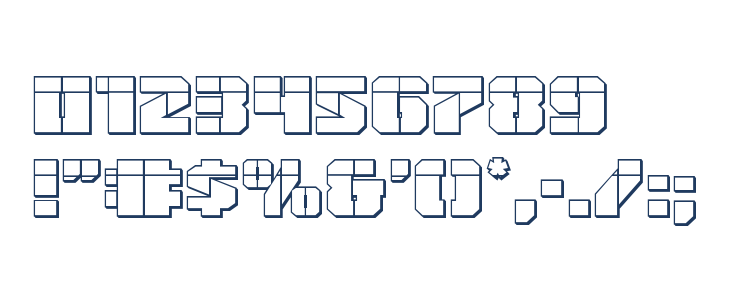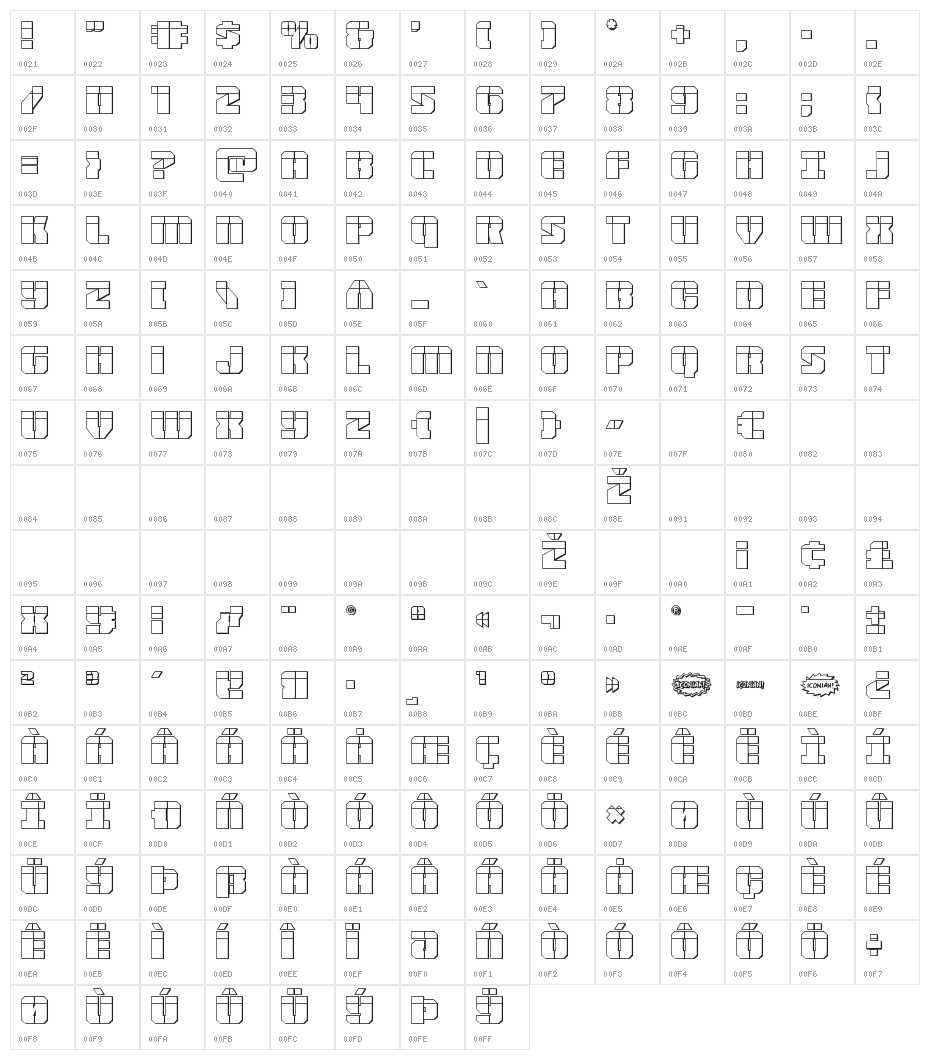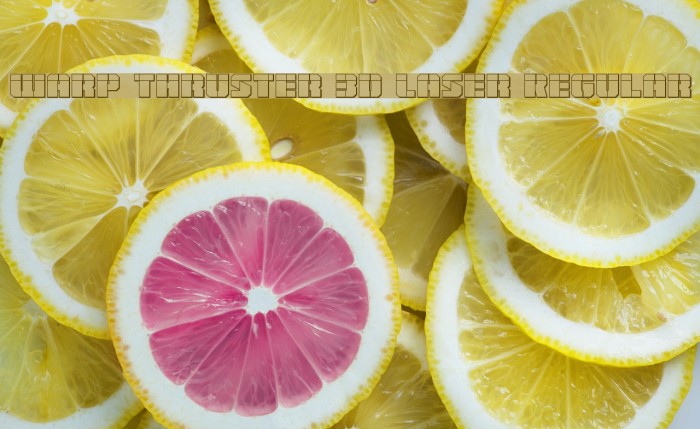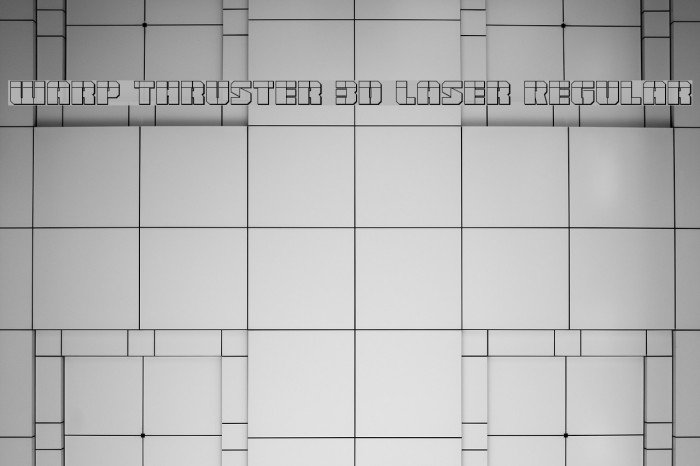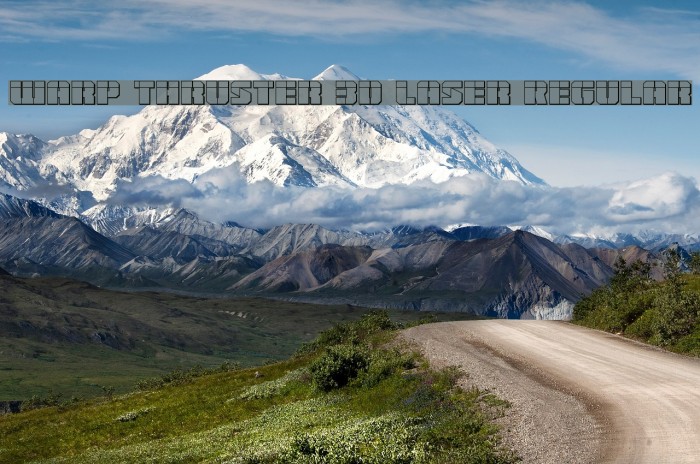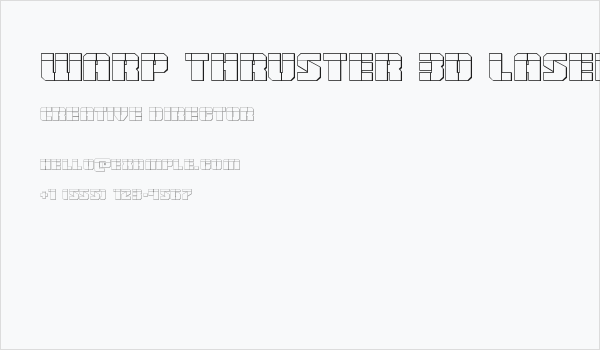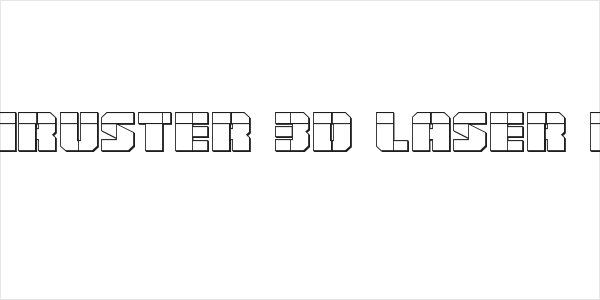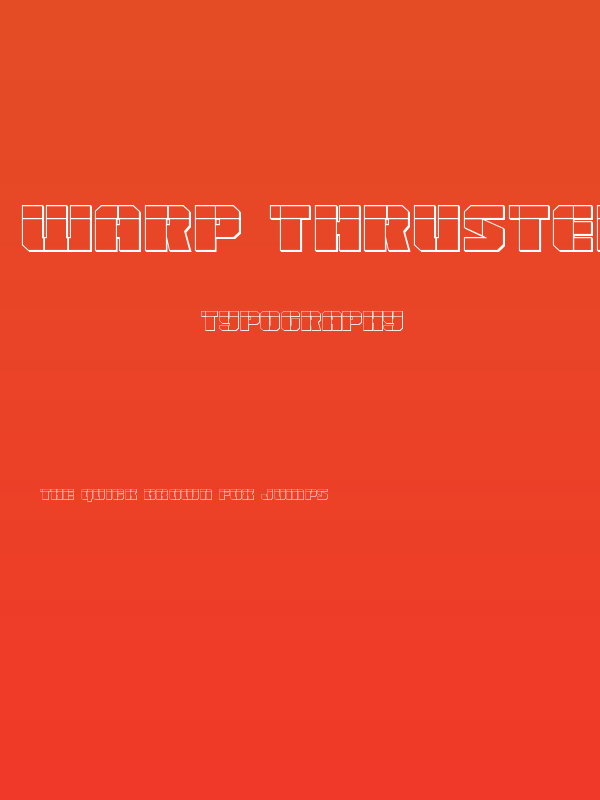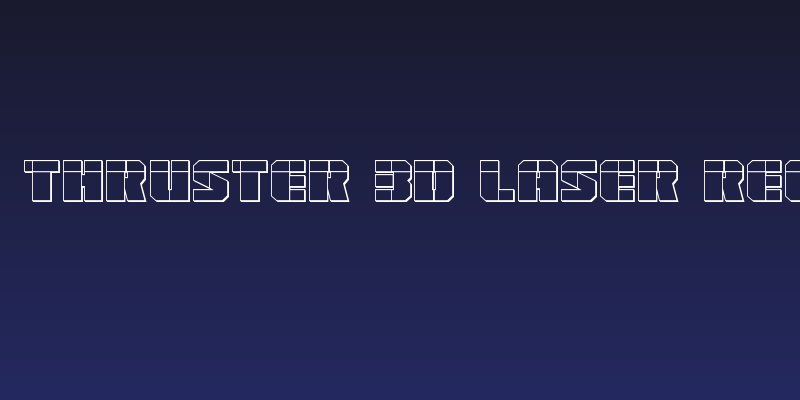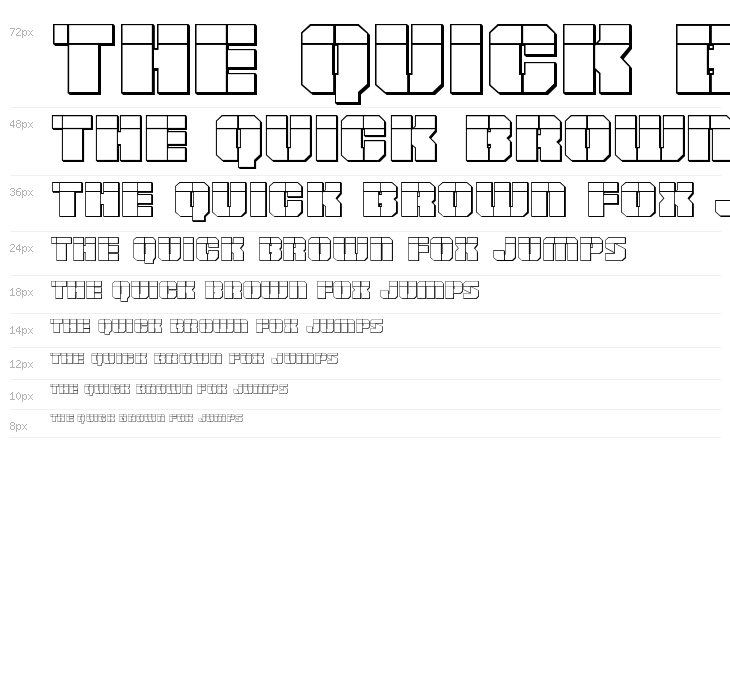
Warp Thruster 3D Laser Regular Font
Warp Thruster 3D Laser Regular Description
This font exhibits a futuristic and geometric design, characterized by its bold, three-dimensional appearance. Each character is constructed with a blocky, angular style that gives a sense of depth and structure. The letters are outlined, creating a hollow effect that enhances the 3D illusion. This design is consistent across uppercase, lowercase, numbers, and special characters, maintaining a cohesive look. The font's unique style makes it stand out, ideal for projects that require a modern and tech-inspired aesthetic.